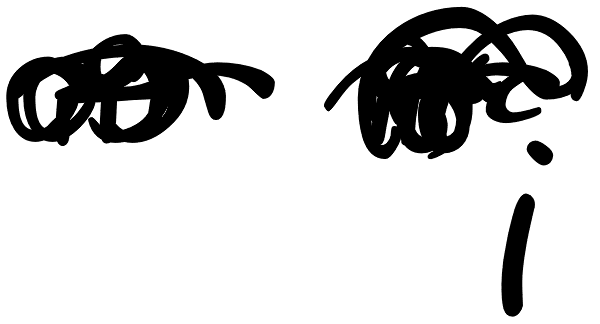
Peter Skoropis
Designed for ParaType in 2003 by Gennady Fridman. The script face based on the samples of Russian handwriting of the reign of Peter The Great (early 18th century) named 'skoropis'. A set of alternate symbols, superiors and punctuation marks...